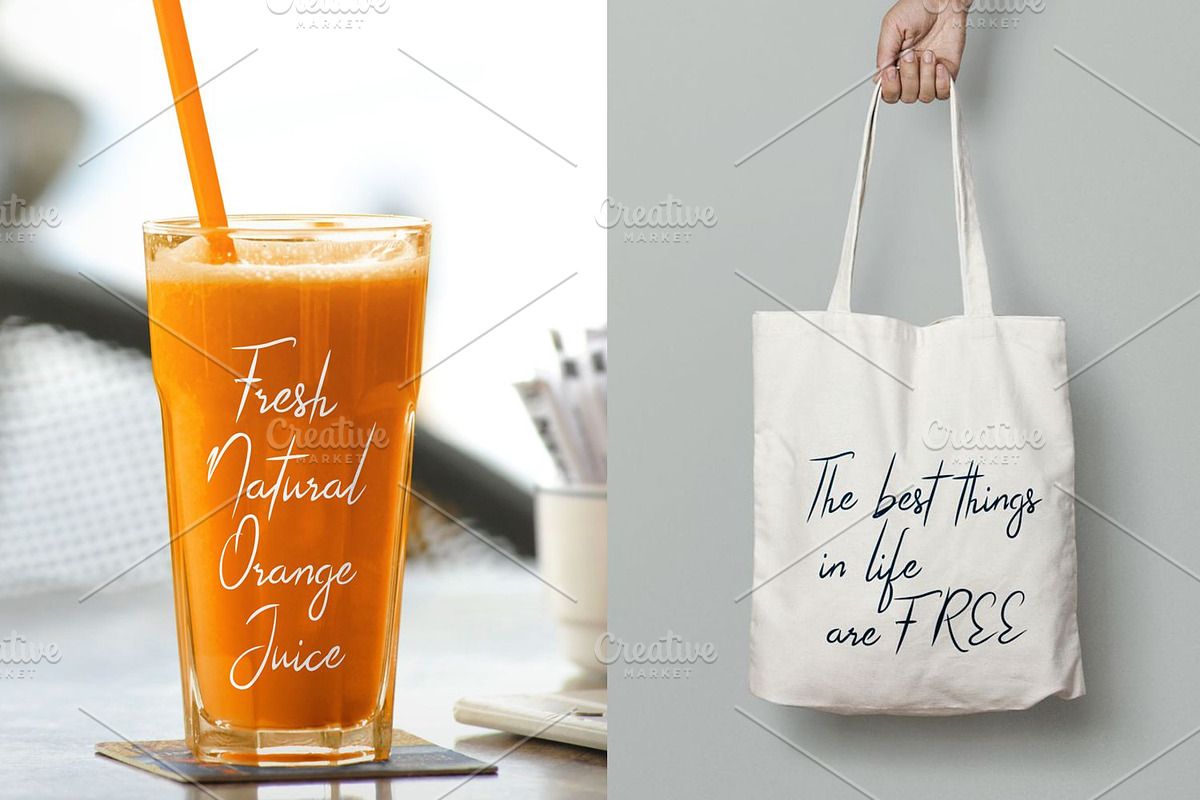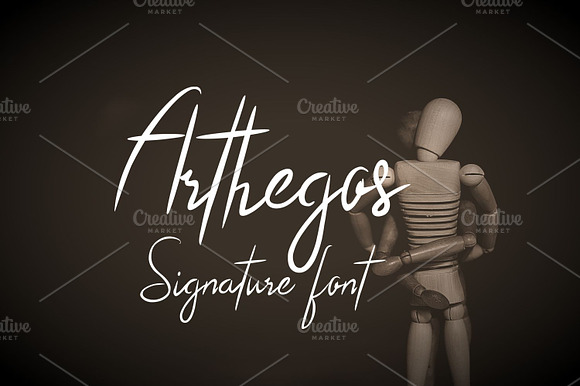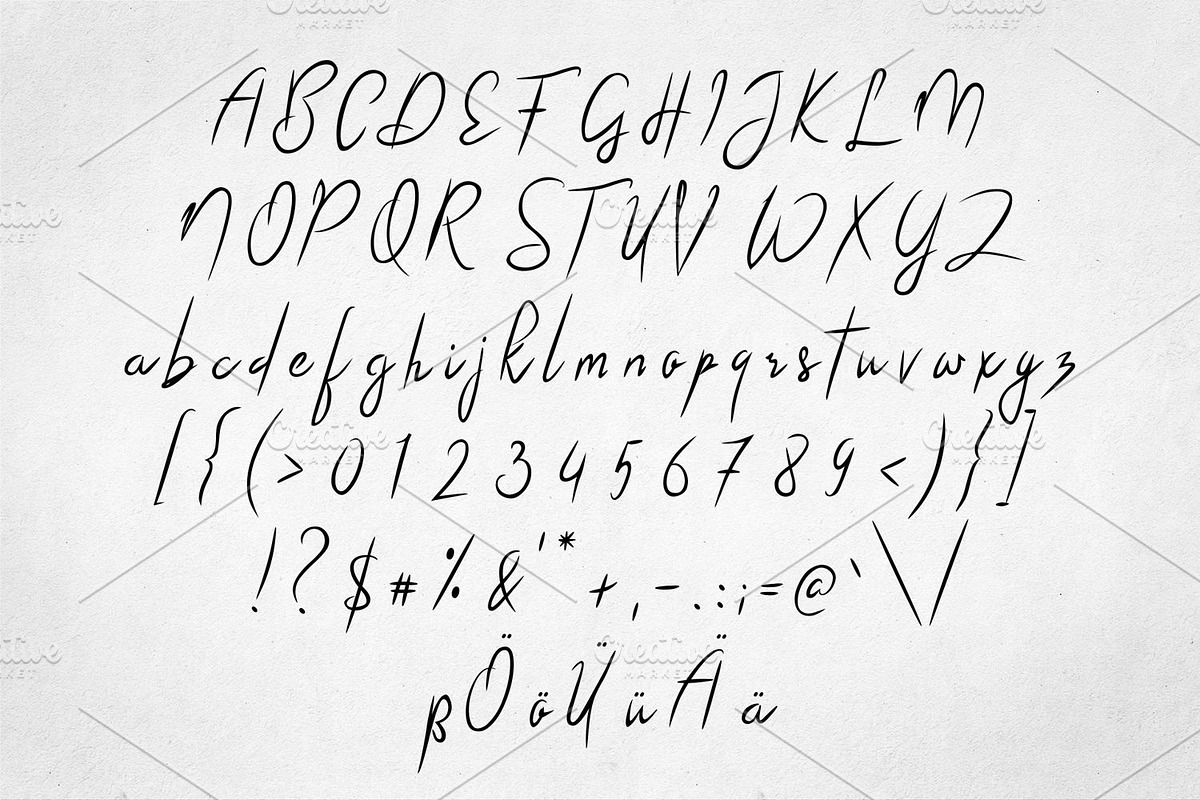
Arthegos
- Arthegos is ideal for logos, branding, packages and more.
Why Arthegos is worth a look
Arthegos by Digital Typeface Studio fits naturally into Branding, posters, packaging, typography.